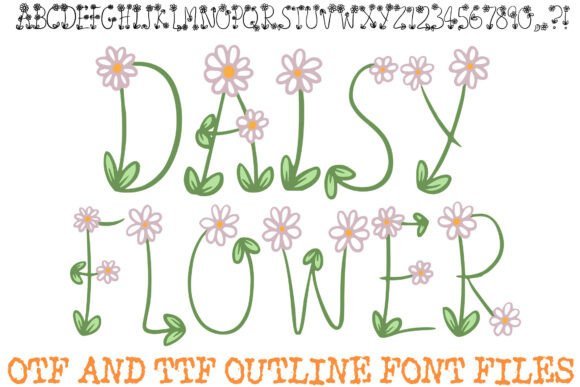
Have you ever been inspired by the simple beauty of a daisy on a spring morning? As you sit in your garden, surrounded by the gentle hum of bees and the sweet scent of blooming flowers, you can’t help but feel a sense of creativity wash over you. You envision a design that captures the carefree spirit of the season, and suddenly, the perfect font comes to mind – the Daisy Flower Font.
This charming, hand-drawn display alphabet is the perfect choice for designers looking to add a touch of nature-inspired whimsy to their projects. With delicate, stem-like letterforms blooming with soft pink and white daisy petals and lush green leaves, the Daisy Flower Font is sure to bring a fresh, garden-fresh feel to your typography.
Daisy Flower Font Key Features
- Unique Characteristics: Hand-drawn, floral design with delicate petal details and a soft, watercolor feel.
- Font Style: Script, cursive, and decorative font styles available for a range of creative applications.
Daisy Flower Font Review
Overall, I’d say the “Daisy Flower Font” is a lovely, whimsical font that’s perfect for adding a touch of elegance and sophistication to your designs. ✨ Here are some things that work well:
- The delicate, hand-drawn style is absolutely charming and would be great for wedding invitations, baby shower invitations, or any other type of design that needs a touch of sweetness.
- The font is highly customizable, allowing you to adjust the size, color, and spacing to fit your design needs.
- The font is available in a variety of weights and styles, making it easy to find the perfect fit for your design.
- The font may not be the best choice for body text, as it can be a bit difficult to read at smaller font sizes.
- The font may not be suitable for headlines or titles that need to be bold and attention-grabbing, as it can come across as a bit too delicate.
Overall, I’d give the “Daisy Flower Font” 4 out of 5 stars. It’s a beautiful, versatile font that’s perfect for certain types of designs, but may not be the best choice for others. ⚠️
Tips for Getting the Most Out of the Daisy Flower Font
Use the Daisy Flower Font to add a touch of whimsy and elegance to your designs.
Pair the font with other playful or vintage-inspired elements to create a unique and eye-catching look.
Experiment with different font sizes and styles to create visual interest and emphasis.
The Daisy Flower Font is perfect for:
Cards and invitations
Wedding stationery
Children’s party decorations
Vintage-inspired advertising